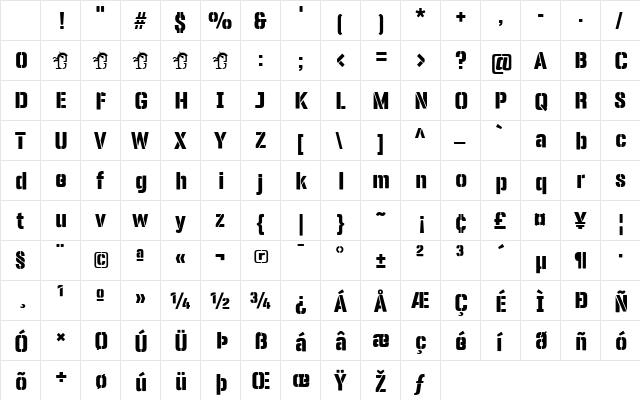
Complete Panfleta Stencil ExtBd Regular glyph index. Displaying only characters natively supported by Panfleta Stencil ExtBd Regular font.
Panfleta Stencil ExtBd borrows the utilitarian aesthetic of stencil lettering, with its characteristic cutaways and no-frills construction lending an industrial edge.
Pro Tip: Use Panfleta Stencil ExtBd at large sizes on packaging, posters, or apparel where the stencil cutaways read clearly. Avoid small sizes where those gaps become visual noise.